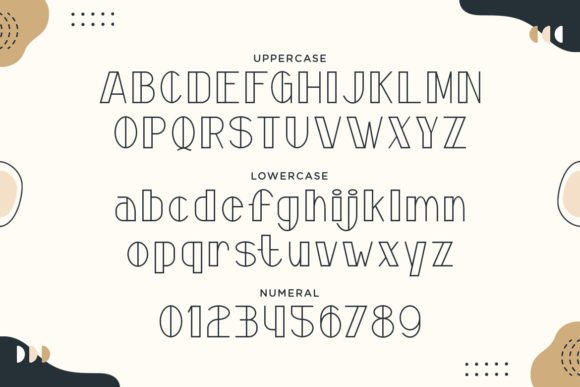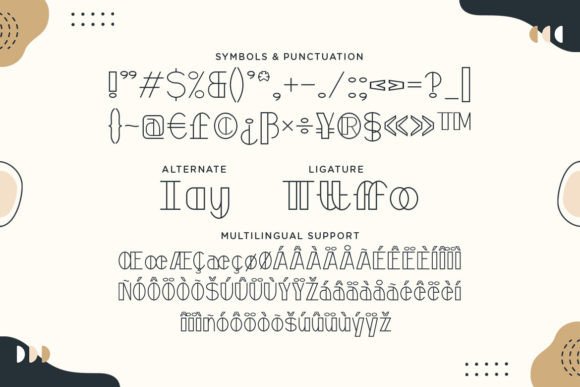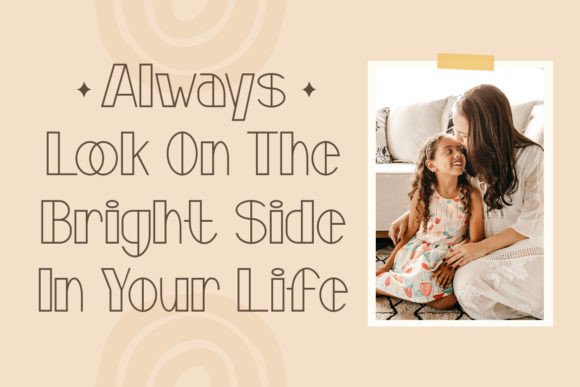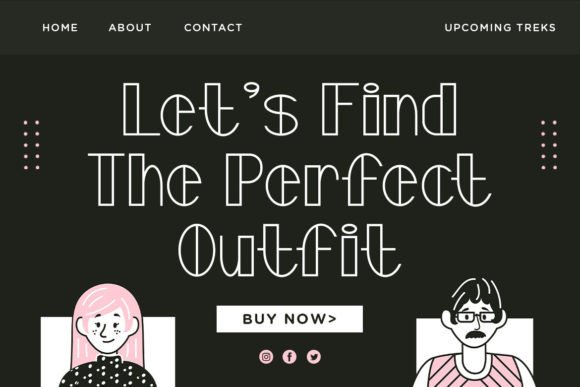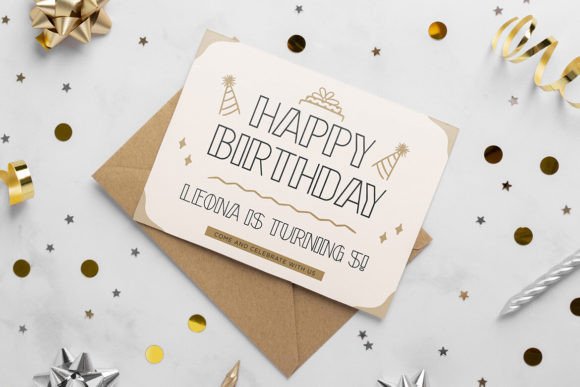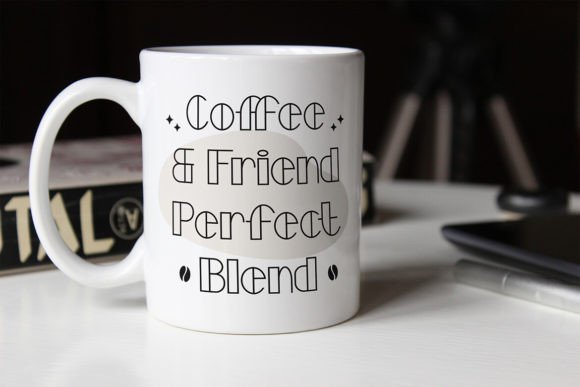
Unleash the Artisanal Charm of Your Designs
Have you ever been stuck in a design rut, struggling to find the perfect font to elevate your project? You know the feeling – staring at a blank canvas, desperate for that one element that brings it all together. That’s when the magic happens. You stumble upon a font that speaks to you, a font that says, “This is it, this is the one.” For many designers, that font is Fawnley, a handcrafted outline font that adds a touch of rustic elegance to any design.
With Fawnley Font, you can infuse your projects with a sense of handmade charm and authenticity. Whether you’re designing logos, packaging, or invitations, this font provides endless possibilities for creative expression. Its versatility and artisanal details make it a valuable asset for designers looking to add a unique touch to their work.
Fawnley Font Key Features
- Unique Characteristics: Fawnley Font boasts a unique blend of rustic and elegant elements, featuring intricate details and subtle texture, making it perfect for designs that require a touch of sophistication and charm.
Fawnley Font Review
I recently had the chance to work with the Fawnley Font, and I must say it’s an interesting addition to any design project. ✨ One of the things that stands out about Fawnley is its unique, whimsical feel. It’s perfect for projects that require a touch of playfulness and elegance.
Some of the features I particularly appreciate include:
- Its high level of customization options, allowing designers to fine-tune the font to fit their specific needs.
- The wide range of weights and styles, making it suitable for various design applications.
- Its seamless integration with popular design software.
However, there are some limitations to consider: ⚠️ The font can be a bit too ornate for some projects, potentially overwhelming the design. Additionally, the lack of a complete character set can be a hindrance for designers working on projects that require a large number of special characters.
Overall, I think the Fawnley Font is a solid choice for designers looking to add some personality to their projects. While it may not be the best fit for every design, its unique charm and customization options make it a valuable addition to any designer’s toolkit.
Tip: Use Fawnley Font for headings and titles to add a touch of elegance to your design.
Tip: Use Fawnley Font for creative projects such as invitations, brochures, and business cards.
Tip: Use Fawnley Font for presentations and documents to add a touch of sophistication.
Fawnley Font is ideal for:
- Business cards and brochures
- Presentations and reports
- Invitations and event materials
Alternatives to Fawnley Font
Pacifico is a beautiful, elegant script font that is perfect for creating a sophisticated and luxurious feel. It is ideal for use in branding, packaging, and advertising where a high-end look is desired. Pacifico is a more refined and polished alternative to Fawnley Font, with a more consistent and flowing style.
Great Vibes is a modern and stylish script font that is perfect for creating a fun and energetic feel. It is ideal for use in social media, blog posts, and advertising where a playful and youthful vibe is desired. Great Vibes is a more casual and relaxed alternative to Fawnley Font, with a more irregular and spontaneous style.